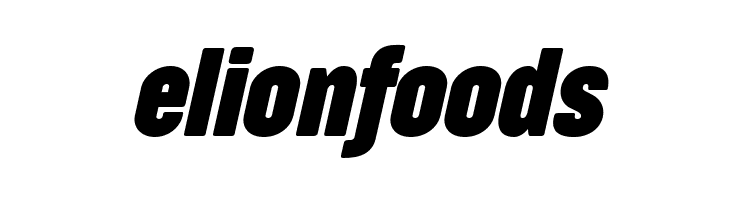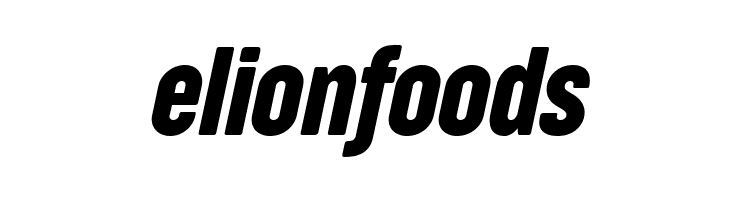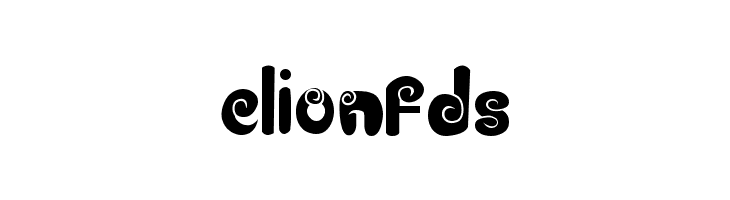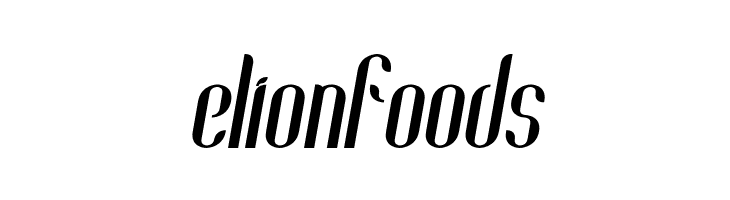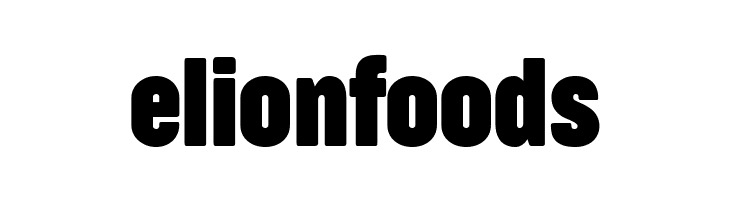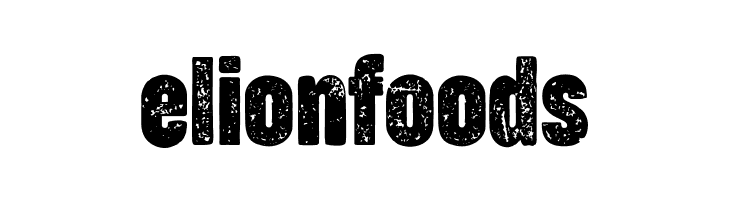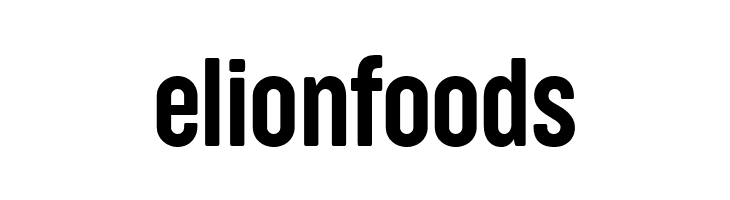
A bold, decorative font with playful swirls and curves.
A bold, compressed font ideal for impactful headlines.
A bold, italic, and compressed font with a modern and dynamic style.
A bold, compressed, and italicized font with a modern and dynamic style.
A bold, distressed font with a vintage letterpress style.
A modern, compressed font with a sleek and uniform design.
A sleek, modern, and compressed light italic font with a dynamic style.
A bold, compressed typeface with a modern and cohesive design.
A bold, modern sans-serif font with a compressed width and clean, geometric design.